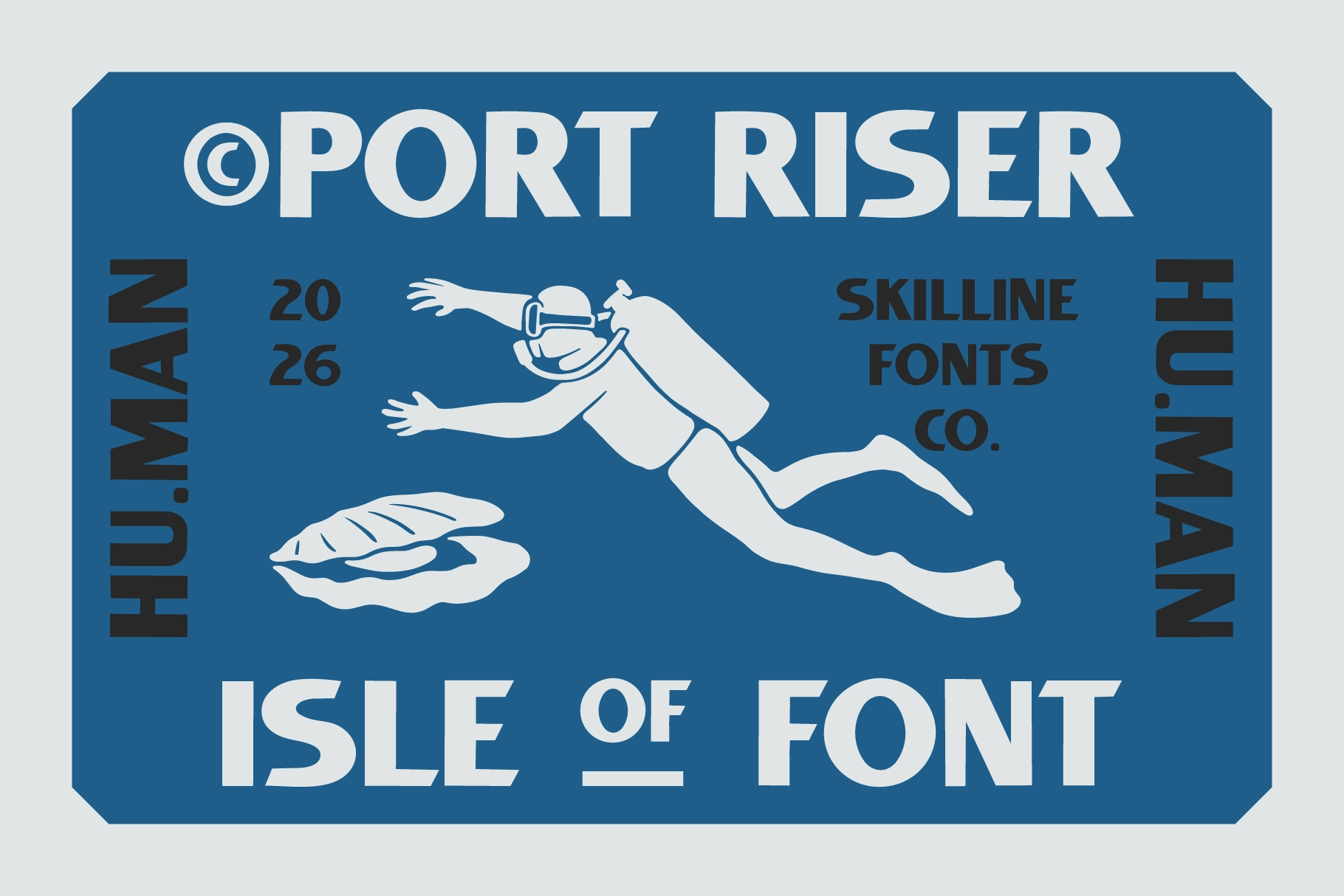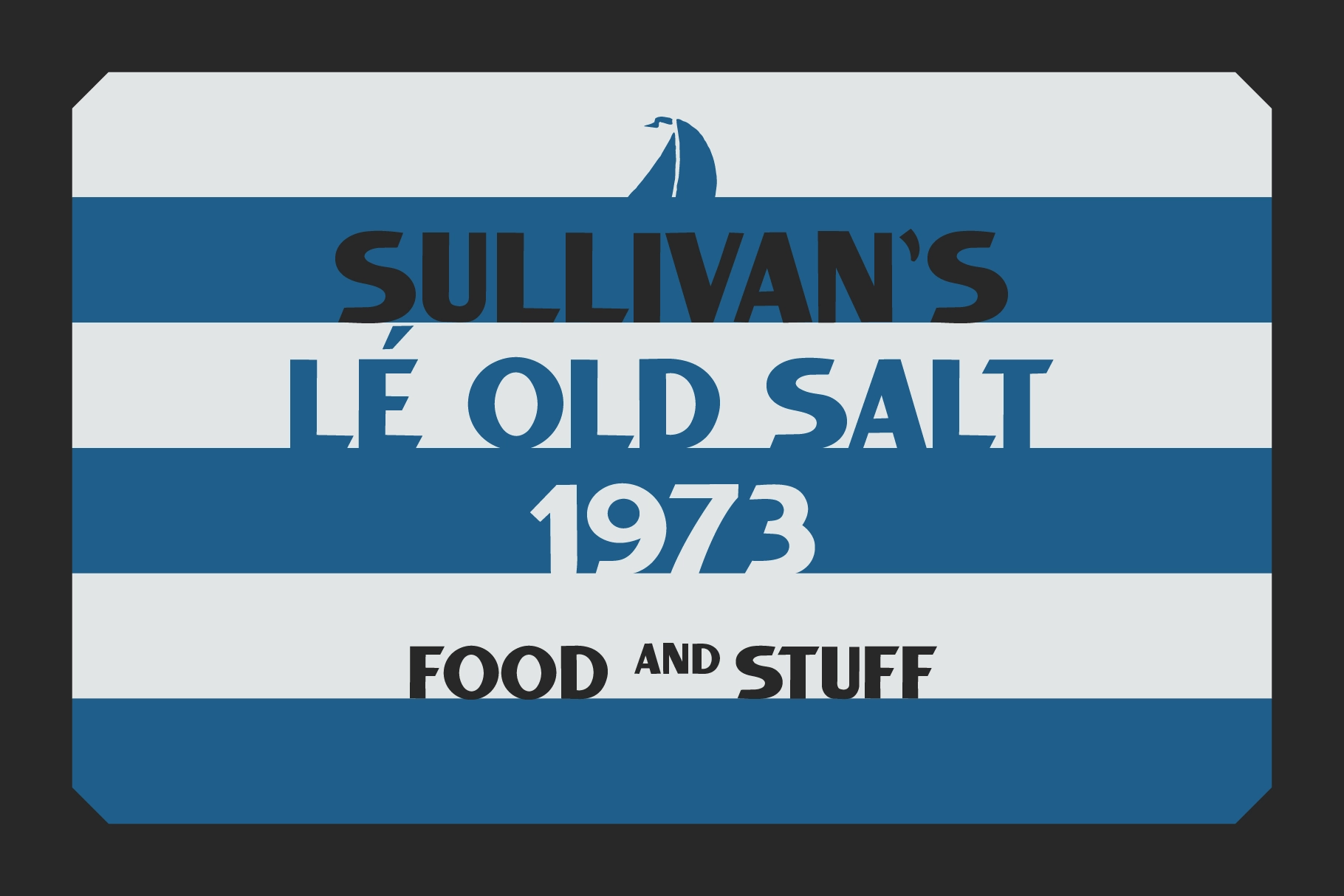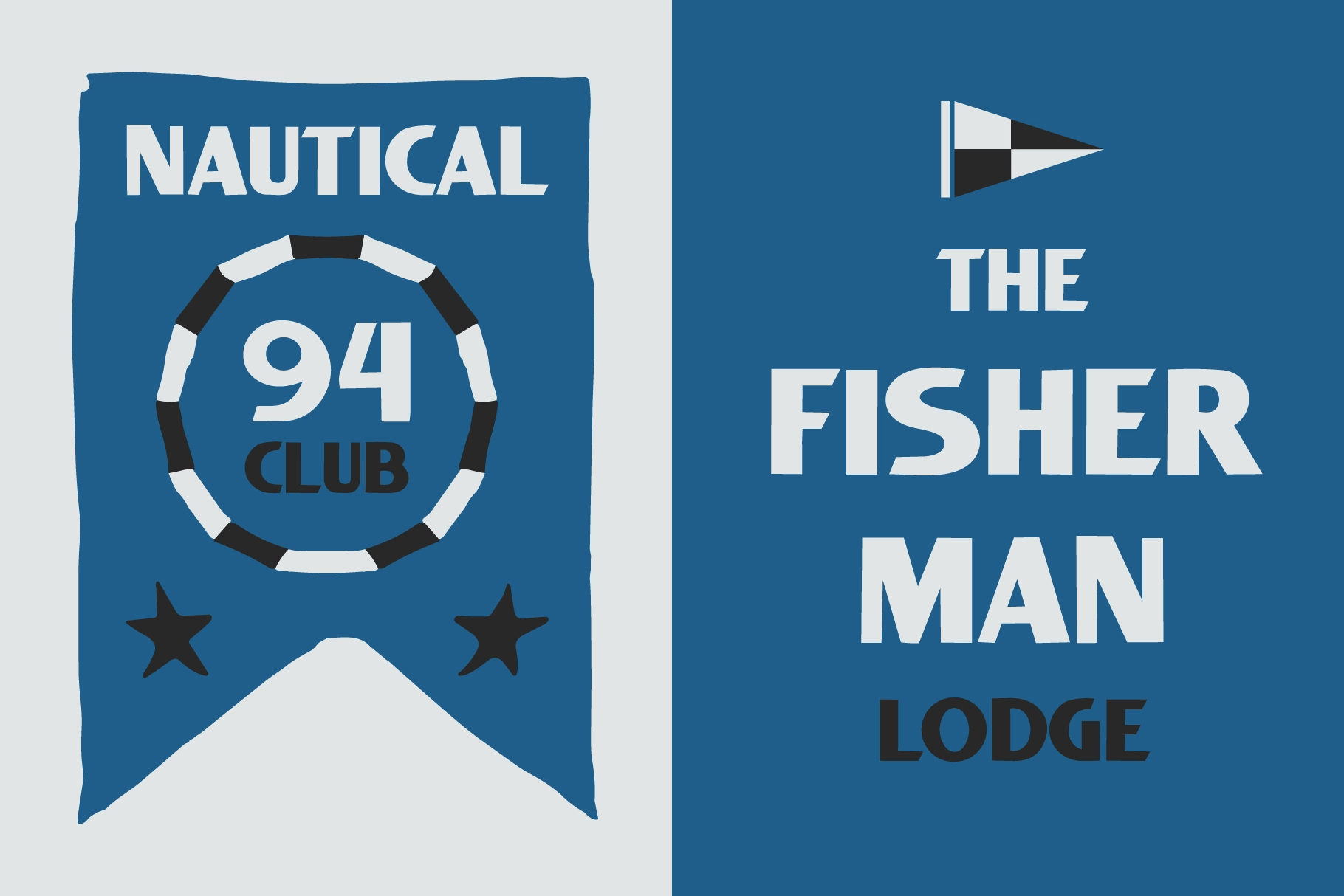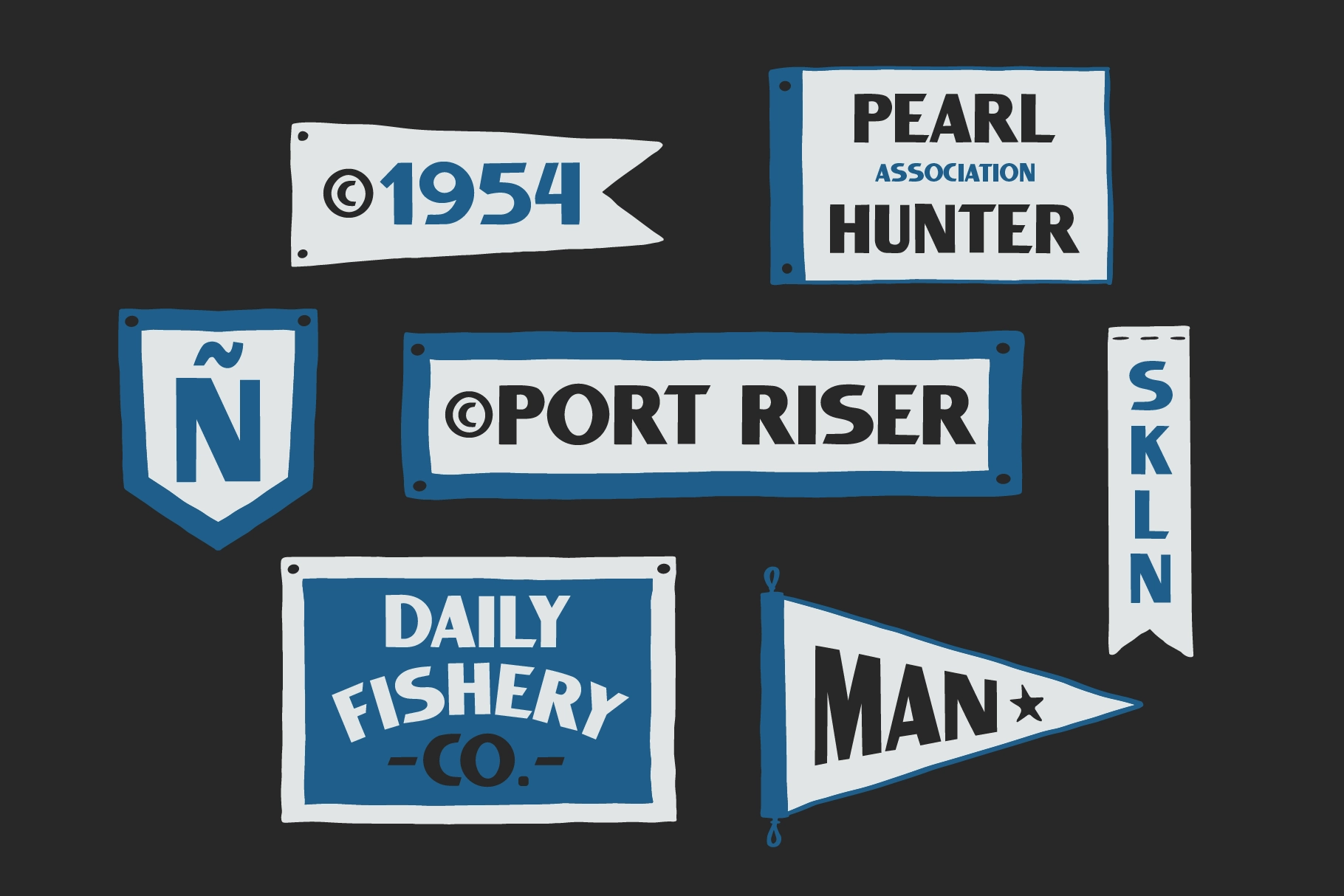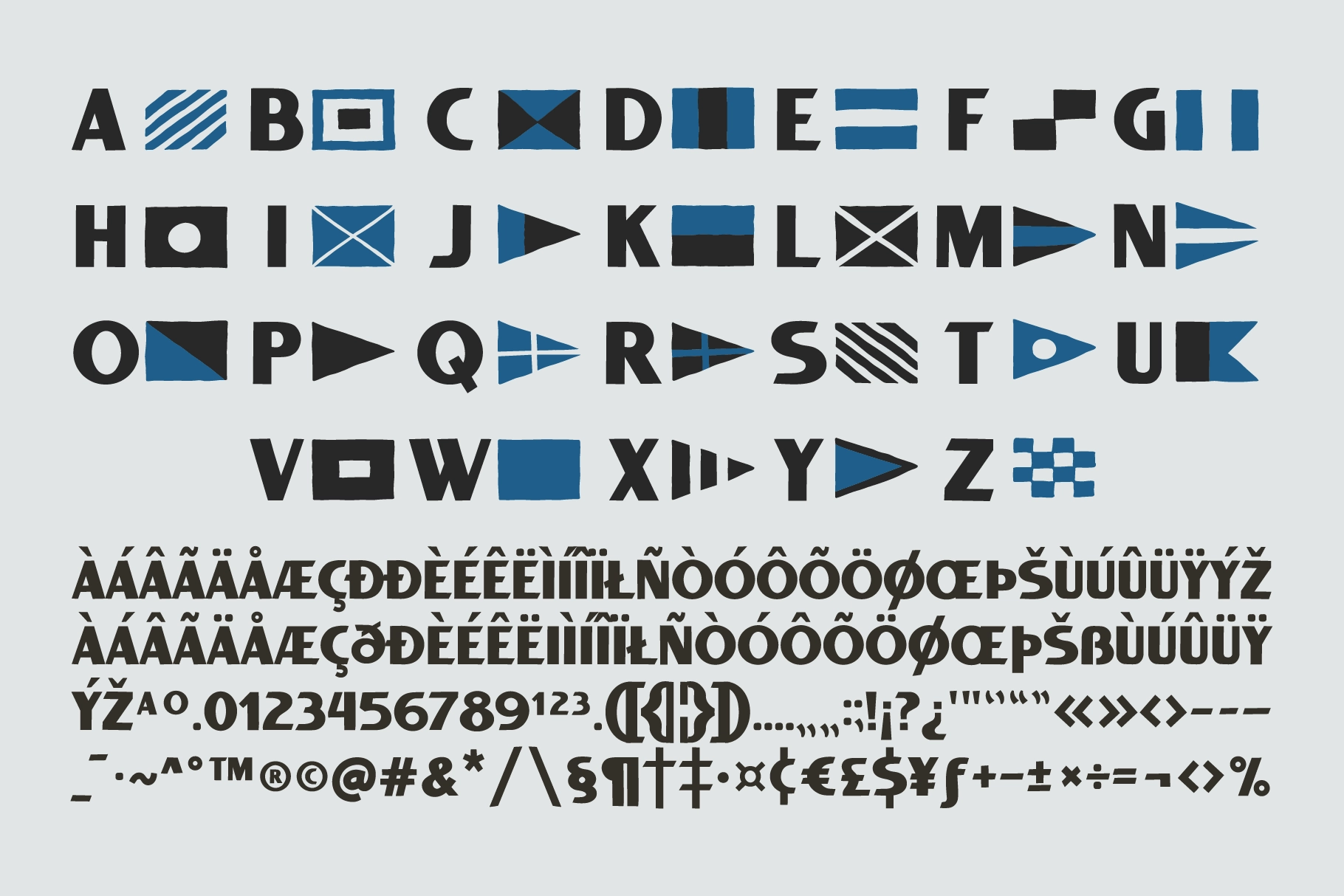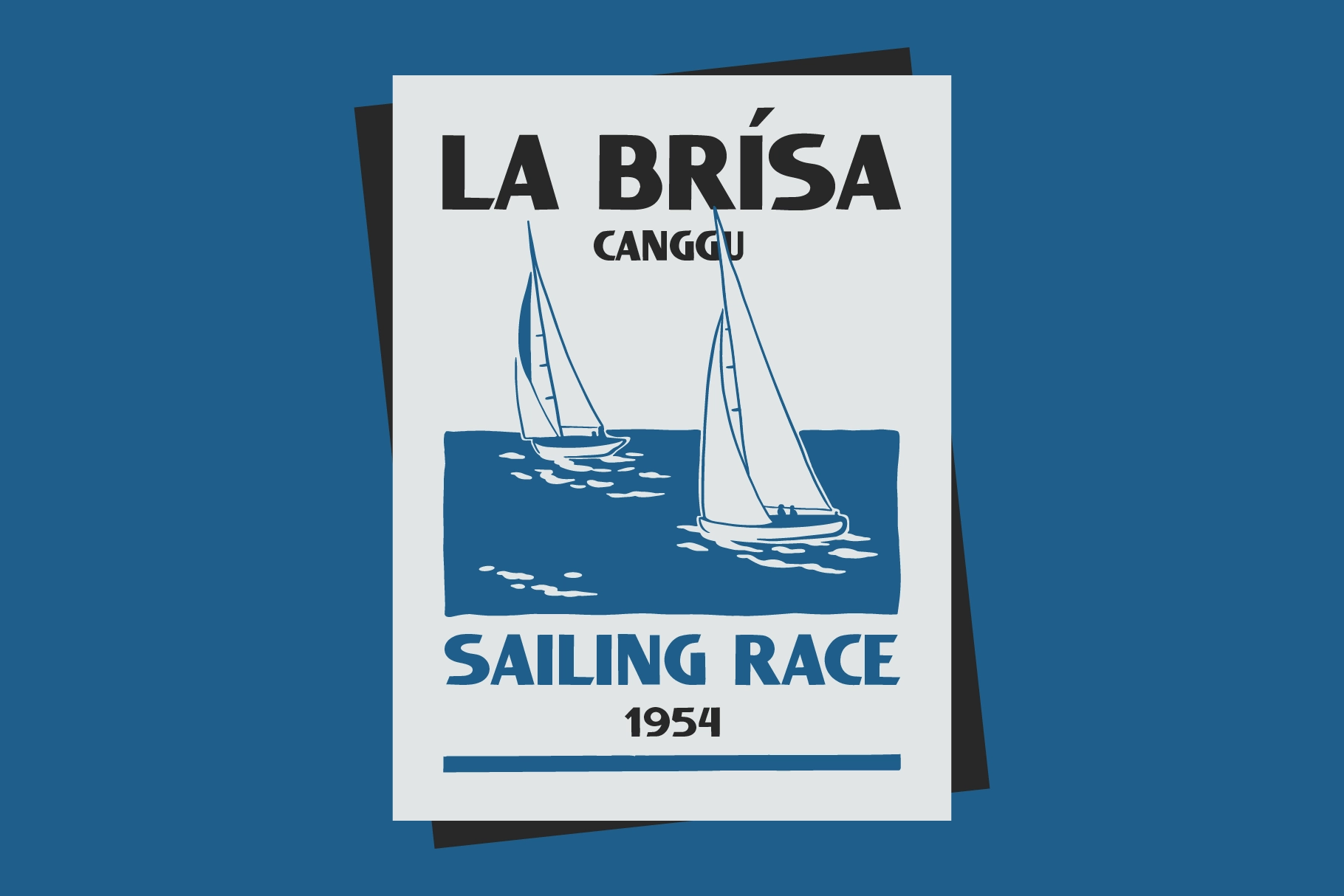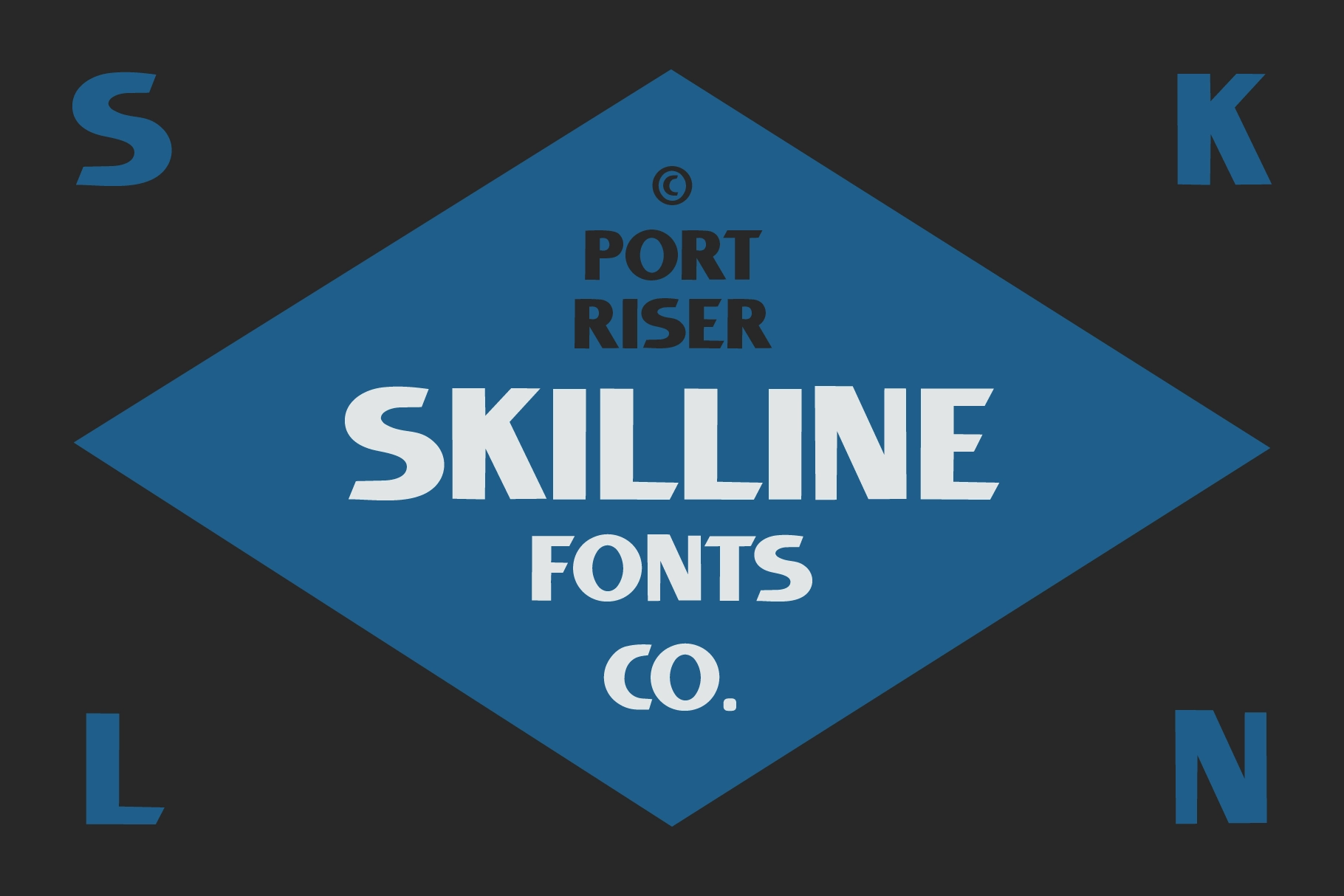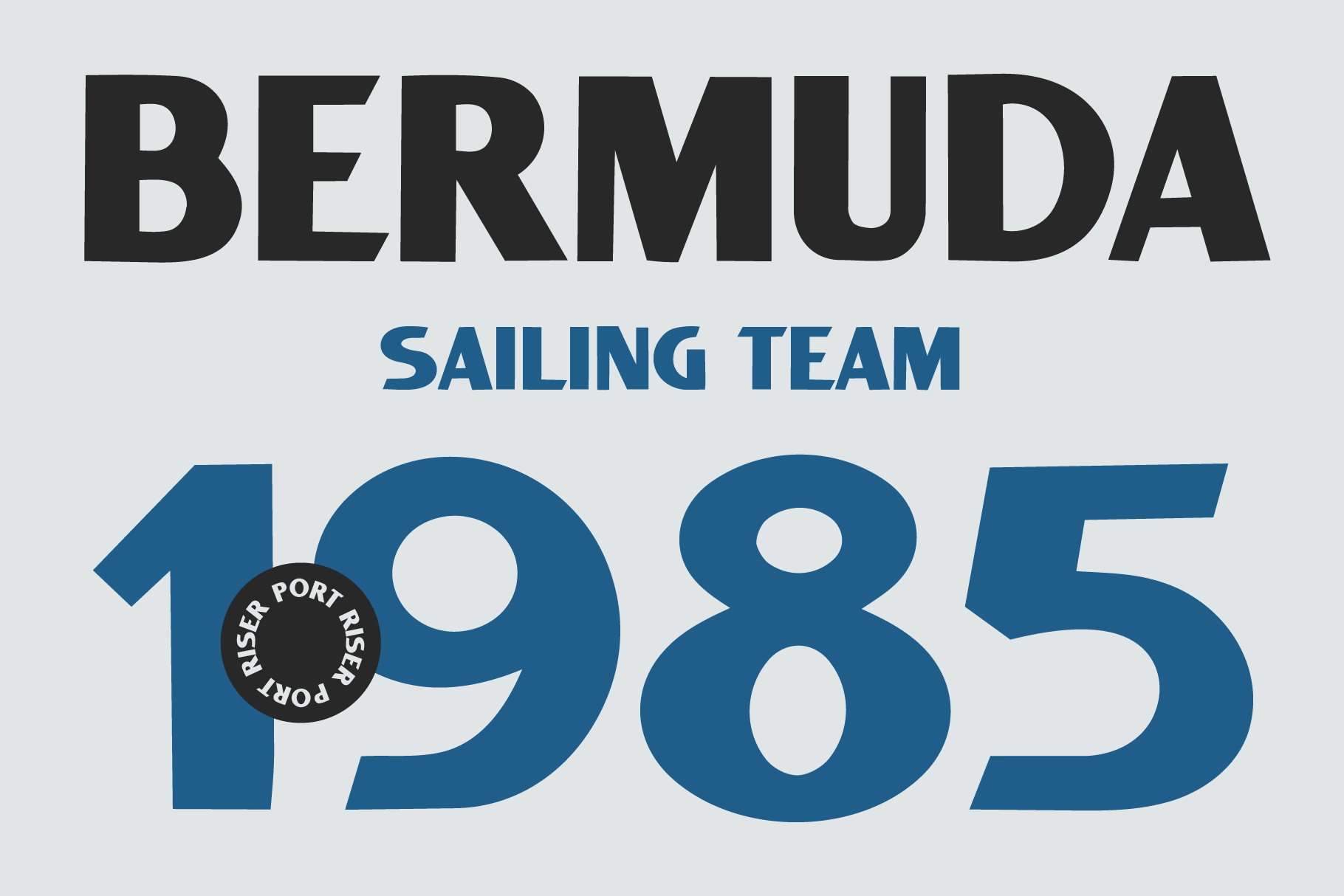
SFC Port Riser - Nautical Display Font
SFC Port Riser
This nautical display font has the blunt confidence of harbor signs, team pennants, dockside labels, and old club badges. Heavy uppercase forms, uneven edges, flag-style alternates, and a crisp hythm give it a sturdy coastal voice with a bit of salt on its collar.
Port Riser is a strong pick for seafood branding, sailing club identities, marina signage, fishing lodge logos, regatta posters, sports apparel, boat decals, coastal packaging, badge designs, summer camp merch, vintage labels, editorial headlines, and more. It is direct, graphic, and easy to read from across the pier, which is usually where the better stories start anyway.